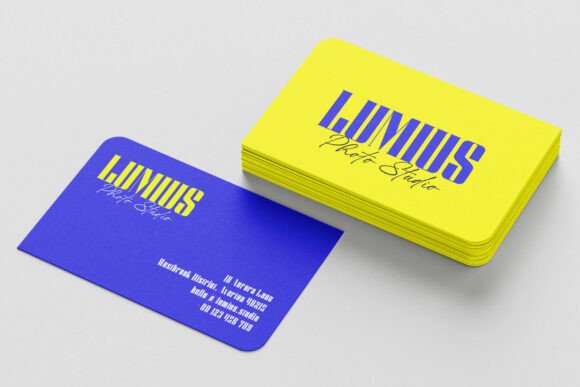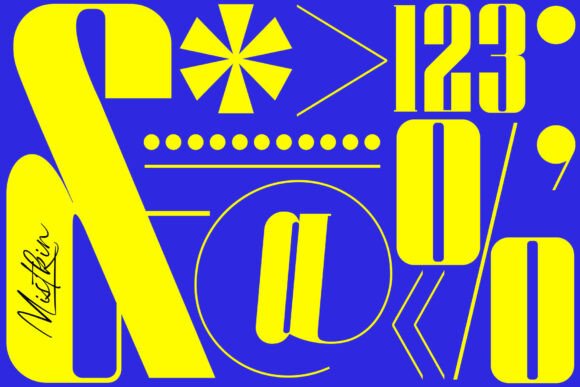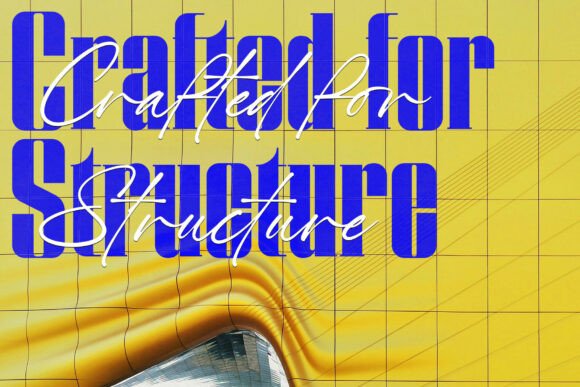
Introduction to Mistkin Font
Have you ever found yourself staring at a blank page, searching for the perfect font to elevate your design? As a designer, you know how crucial it is to choose a font that not only complements your message but also adds a touch of sophistication to your work. For those moments when you need a little inspiration, we’d like to introduce you to the stunning Mistkin Font.
This modern font duo is a game-changer for designers, offering a unique blend of a bold display serif and a flowing signature script. The result is a harmonious and refined visual style that exudes elegance and sophistication. With its seamless pairing, Mistkin Font is ideal for branding, editorial layouts, logos, packaging, and stylish headlines. Whether you’re working on a creative project or need a high-quality design resource, Mistkin Font is sure to impress.
- Unique characteristics include its elegant and sophisticated style, making it perfect for branding and advertising materials.
Honest Review: Mistkin Font
As a designer, I’m always on the lookout for high-quality design resources to enhance my creative projects. Recently, I stumbled upon the Mistkin Font, and I’m excited to share my honest review with you.
- Unique aesthetic: The Mistkin Font boasts a distinctive, modern design that adds a touch of sophistication to any project.
- High-quality glyphs: The font’s high-quality glyphs ensure crisp and clear rendering, making it perfect for digital designs.
- Limited language support: The Mistkin Font is primarily designed for Latin-based languages, which might limit its usability for designers working on projects that require support for other languages.
The Mistkin Font is suitable for a wide range of creative projects, including:
- Graphic design and visual branding
- Print materials, such as business cards and brochures
- Digital design, including websites and social media graphics
- Presentations and documents
Is the Mistkin Font suitable for print or digital use?
The Mistkin Font is suitable for both print and digital use, thanks to its high-quality design and scalable vector format. However, if you’re planning to use the font for large-scale print projects, we recommend checking the font’s resolution and legibility at different sizes to ensure optimal results.